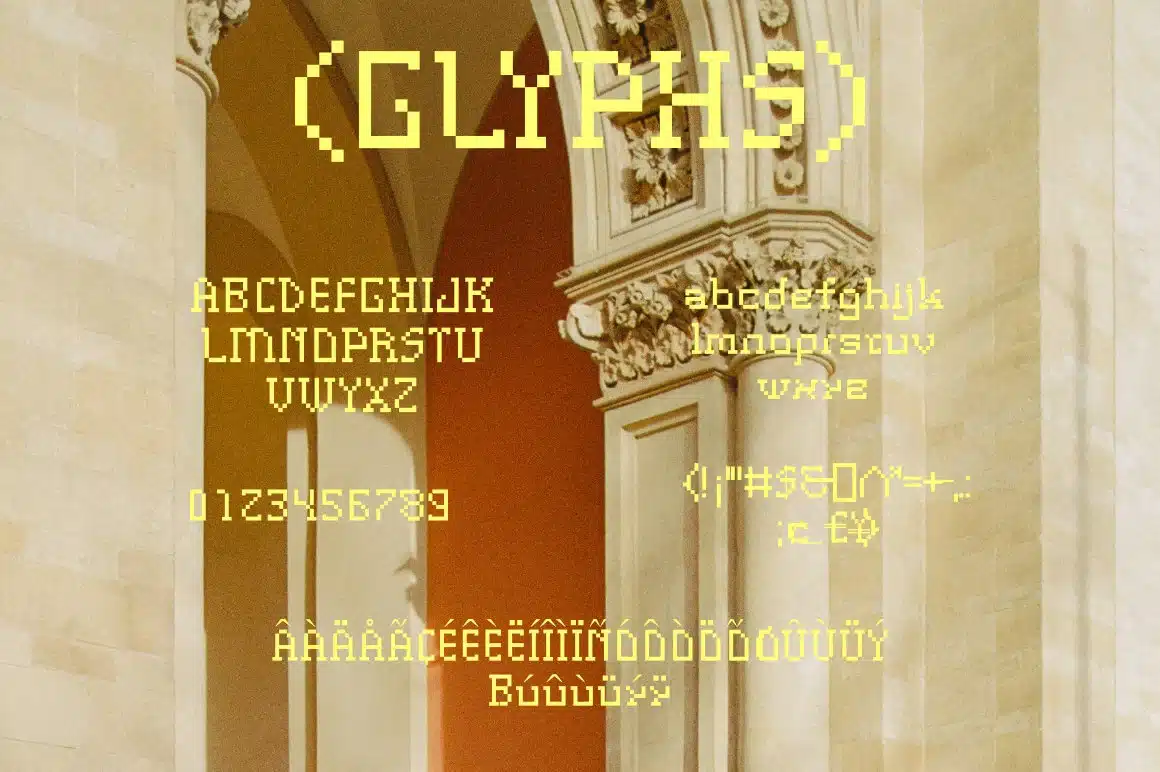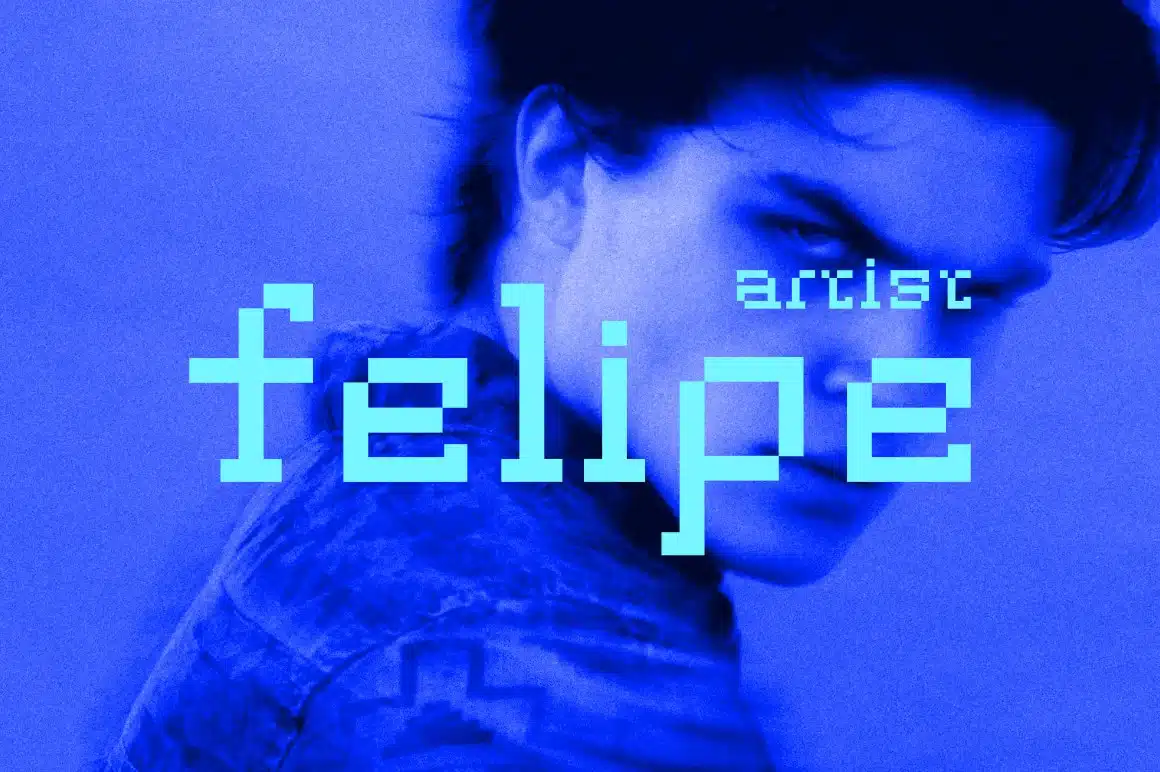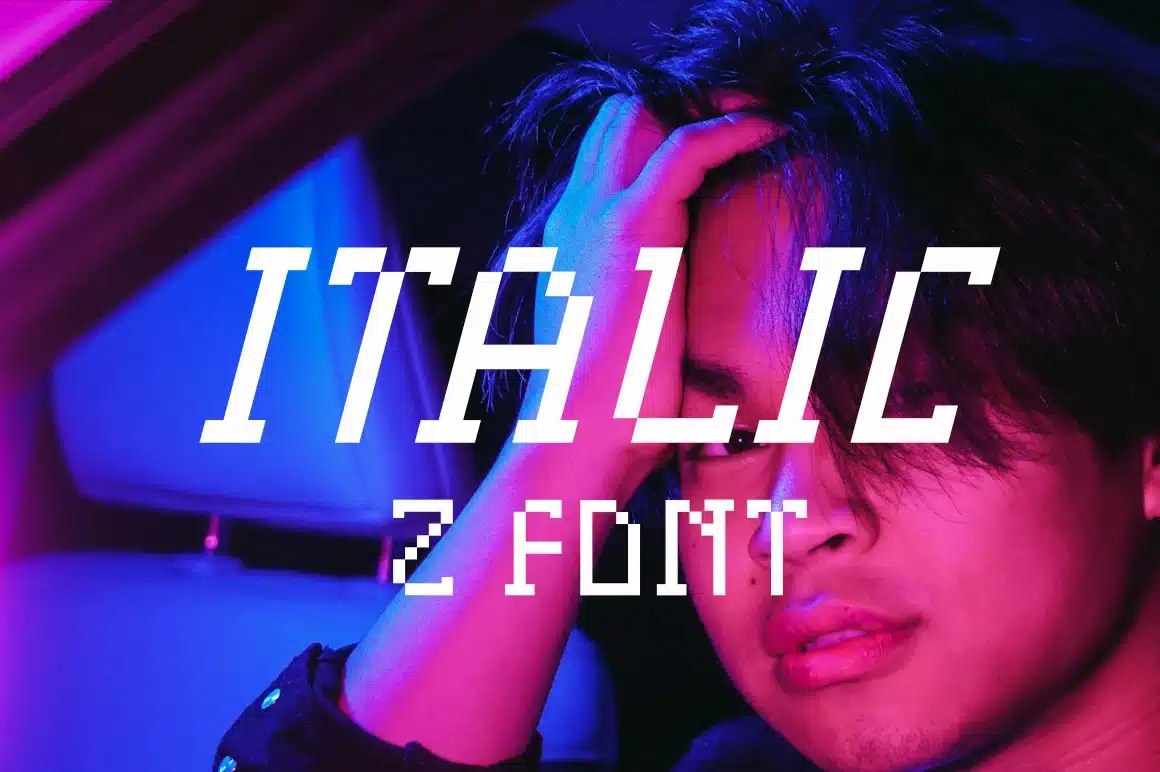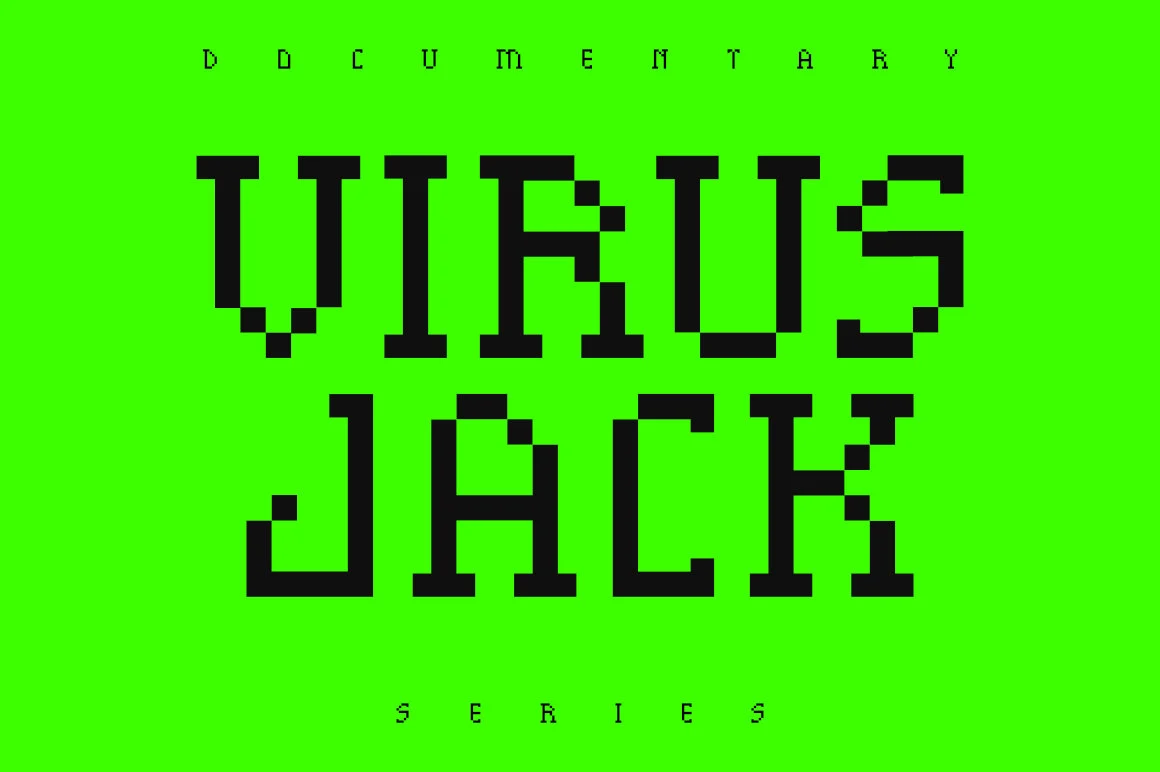
Groutpix Flow Slab Serif Font
With its clean lines, bold strokes, and geometric proportions, this slab serif modern font is perfect for projects that demand attention. Its timeless design makes it ideal for everything from headlines and logos to body copy and branding.